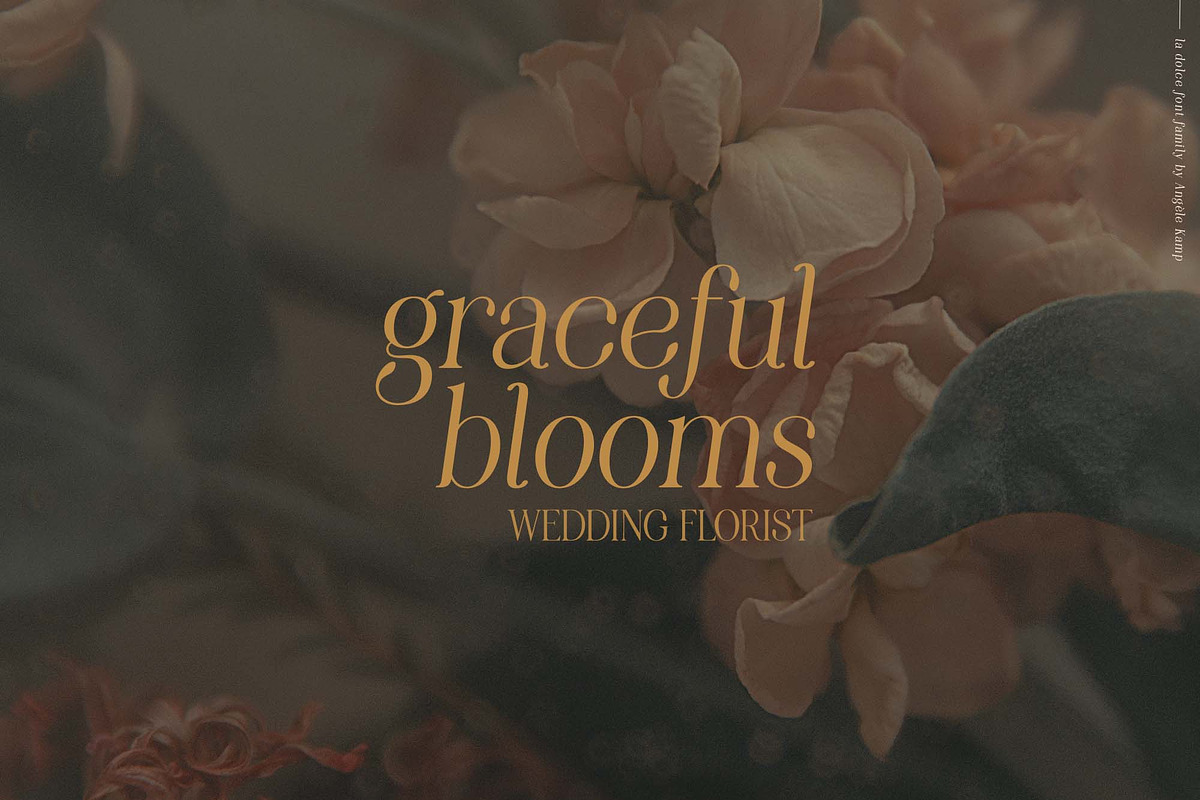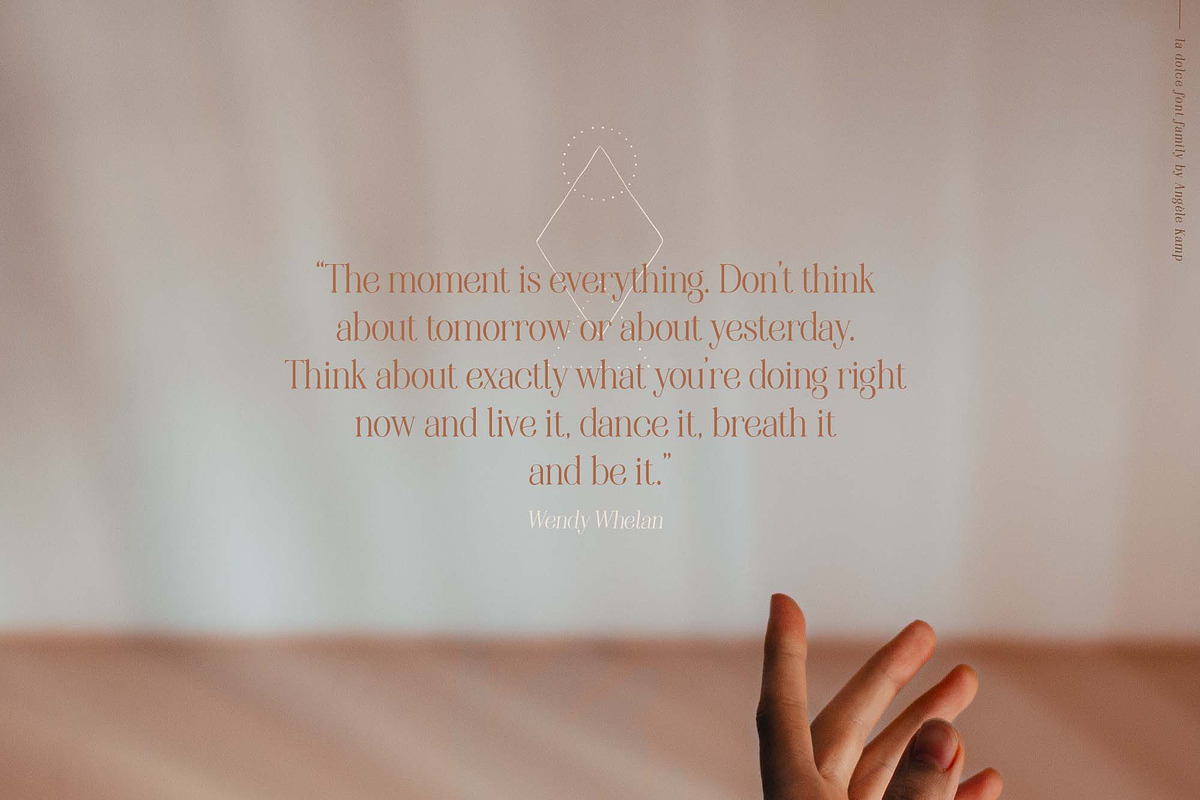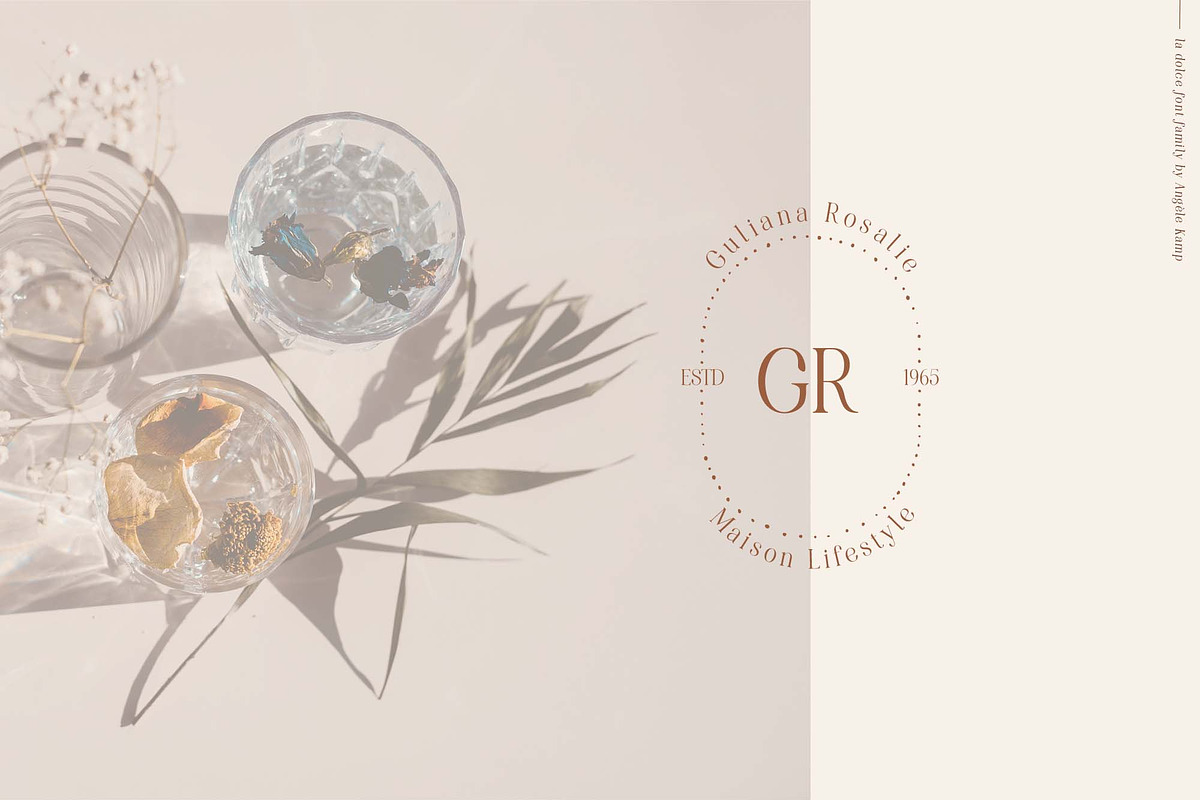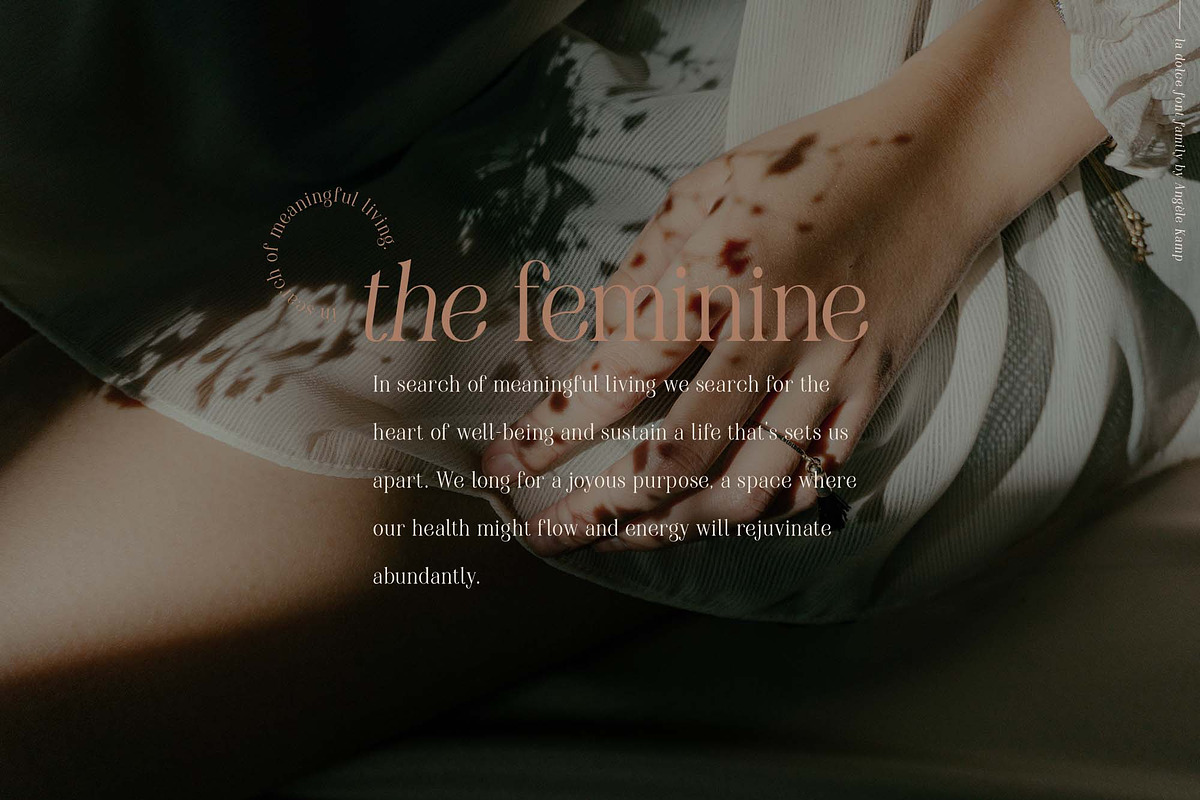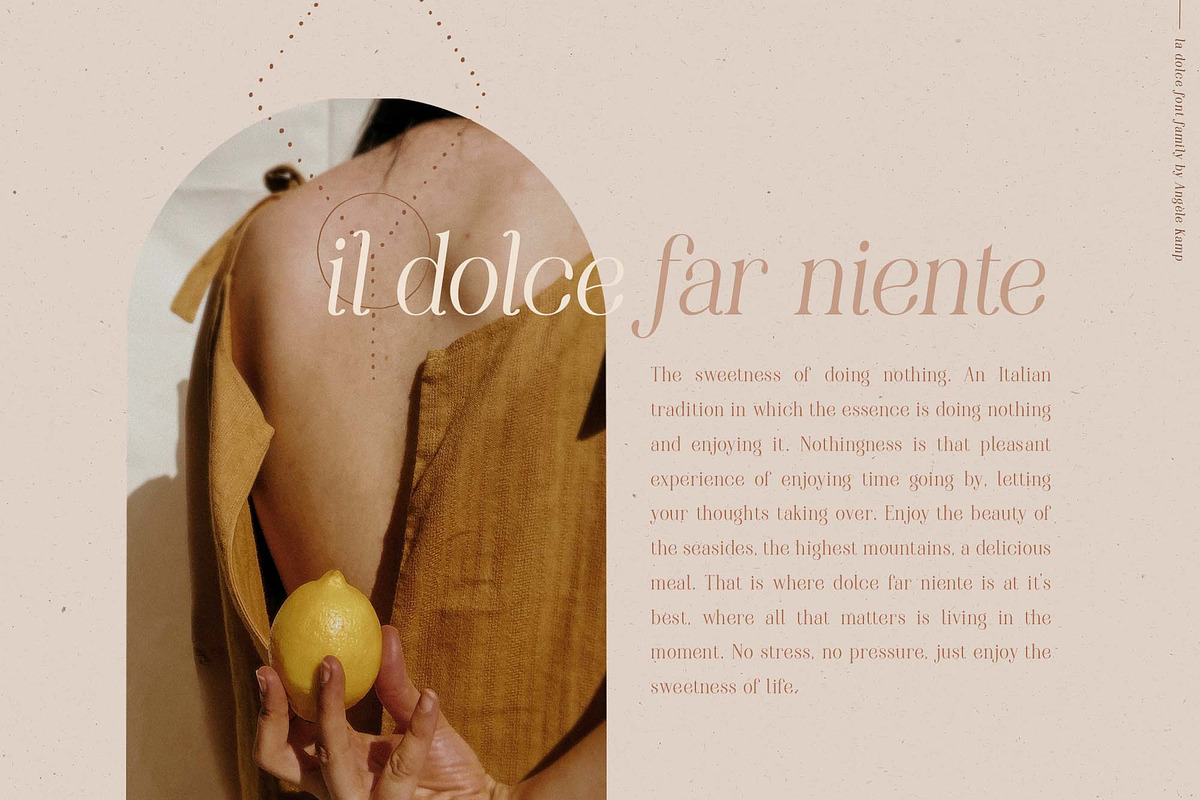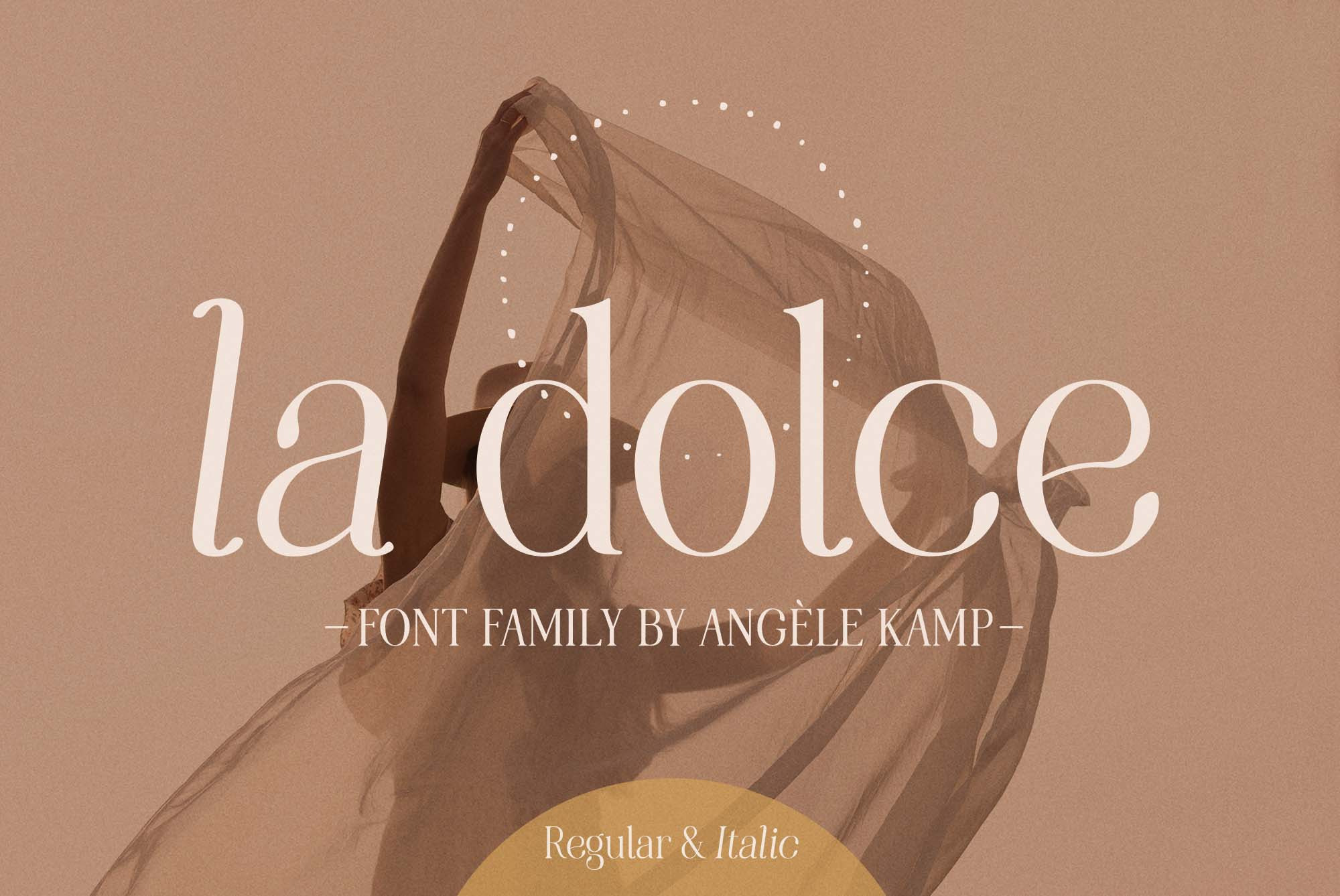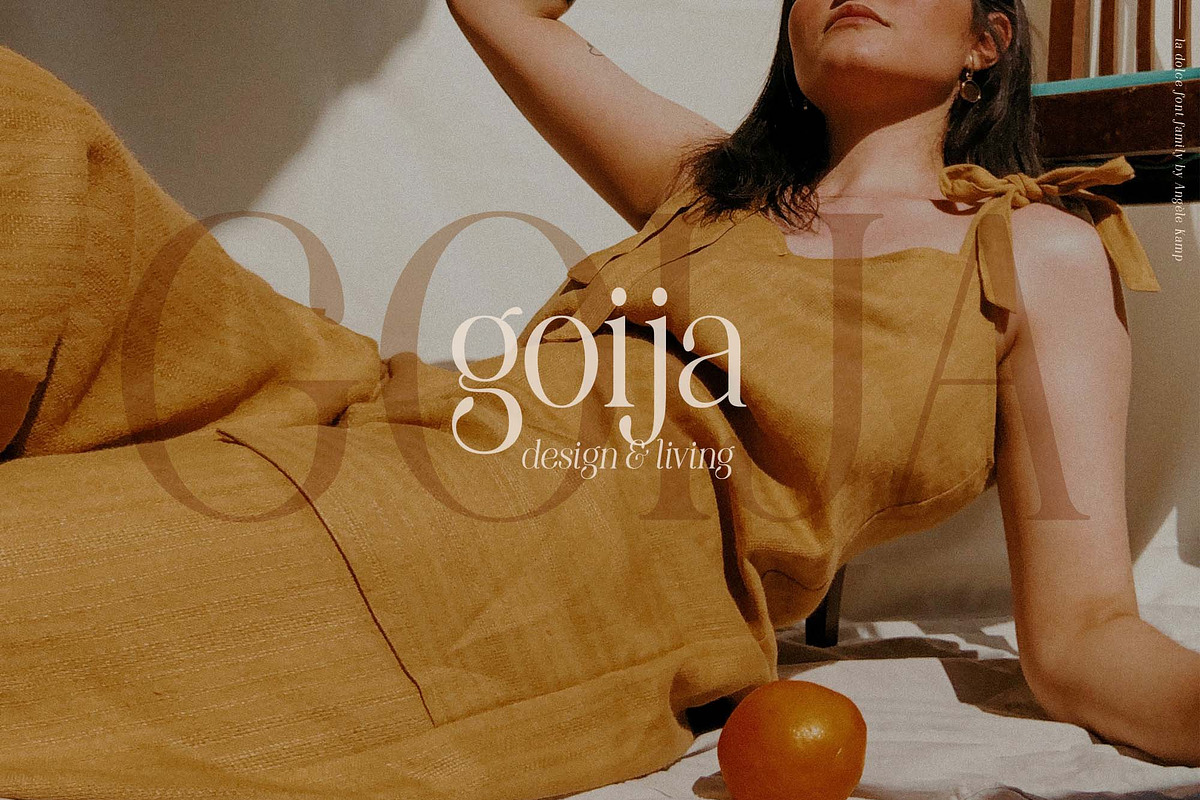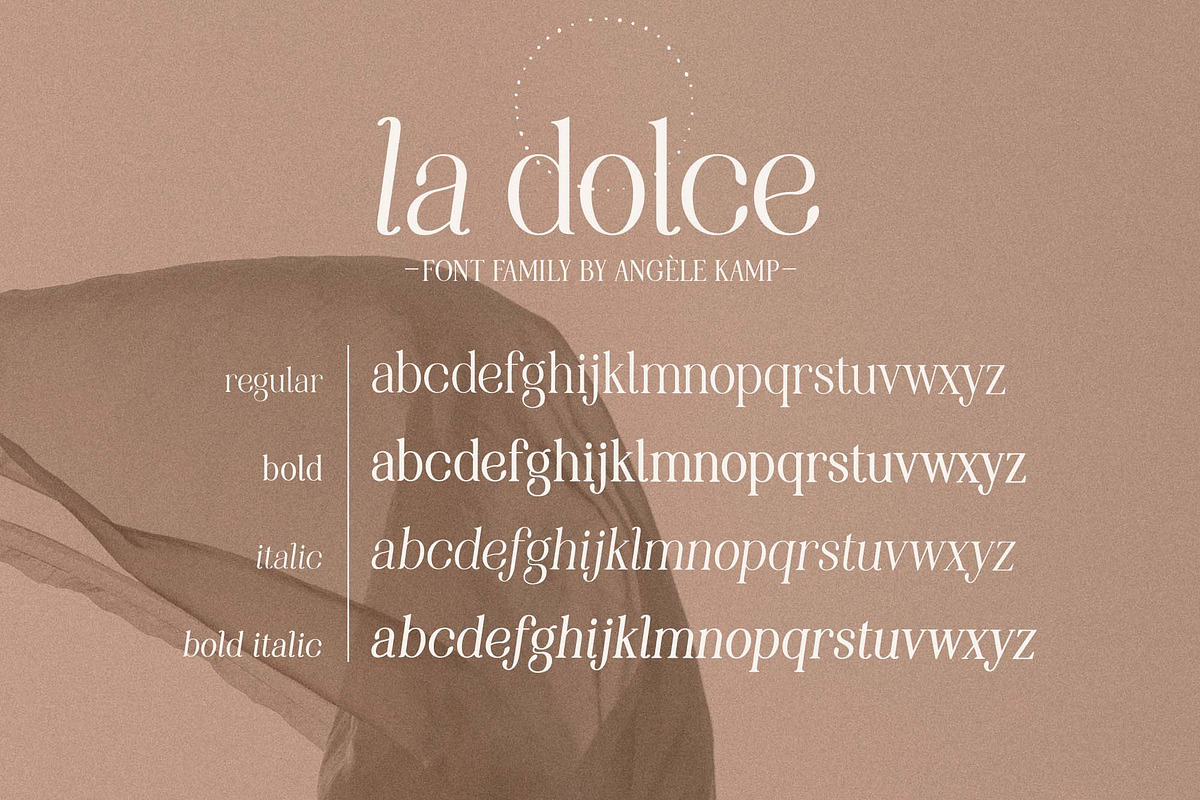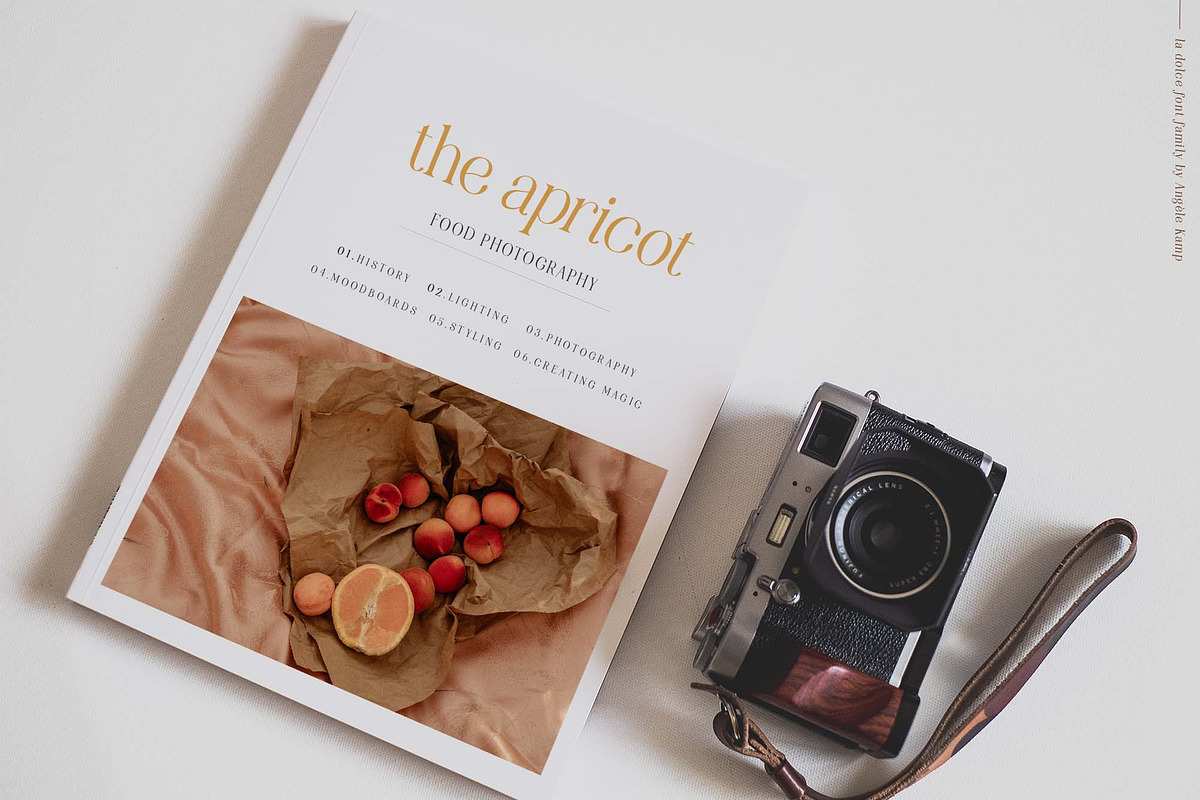
Modern serif font family La Dolce
La Dolce is an elegant serif font family with a feminine style. This beautiful collection will instantly add class to all of your design projects. As a bonus, you will receive 9 hand-drawn shapes that complement the fonts perfectly.
This stylish font family is timeless and can not be missed in your font collection. It is the perfect branding font and will help you to easily create logos, wedding designs, and all other commercial projects.
This display font family is the definition of class & high fashion. It's a combination of luxury, classy and modern all rolled into one. Don't wait to add this luxury font family to your collection and start designing straight away.